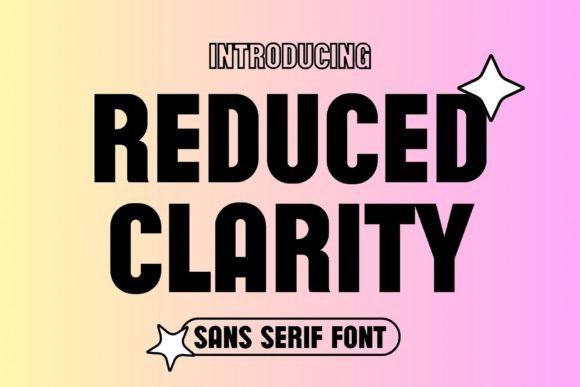
Welcome to the world of Reduced Clarity Font, a sans serif font family that exudes modern sophistication and unique charm. Perfectype, the creative mind behind this masterpiece, has crafted a font that seamlessly blends contemporary aesthetics with timeless elegance.
Embark on a typographic journey where creativity knows no bounds. Reduced Clarity Font is the perfect companion for logotypes, wedding invitations adorned with intricate details, romantic cards that whisper sweet nothings, labels that demand attention, packaging that speaks volumes about your brand, and the art of spelling names with a touch of panache.
Let your imagination run wild as you explore Reduced Clarity Font's endless possibilities. It's a font that embraces diversity, effortlessly adapting to a myriad of design styles. From branding projects that demand a bold statement to web designs seeking a touch of understated elegance, Reduced Clarity Font rises to the occasion, delivering exceptional results every time.
Editorial projects take on a new life with Reduced Clarity Font. Its natural writing style lends a touch of authenticity and relatability to your words, drawing readers into your stories and capturing their attention from the very first word.
The world of prints and crafts becomes a vibrant canvas with Reduced Clarity Font as your artistic tool. Create eye-catching posters that command attention, design greeting cards that warm hearts, and transform ordinary objects into extraordinary works of art. The possibilities are endless, limited only by the boundaries of your imagination.
Quotes take on a new meaning when adorned with Reduced Clarity Font. Its ability to convey emotions with mere shapes and lines elevates your words, turning them into poignant expressions that resonate with your audience.
Reduced Clarity Font is a treasure trove of typographic wonders, waiting to be discovered and unleashed upon the world. Add it to your creative arsenal and watch as your ideas come to life, imbued with a touch of magic and a whole lot of Reduced Clarity Font charm.